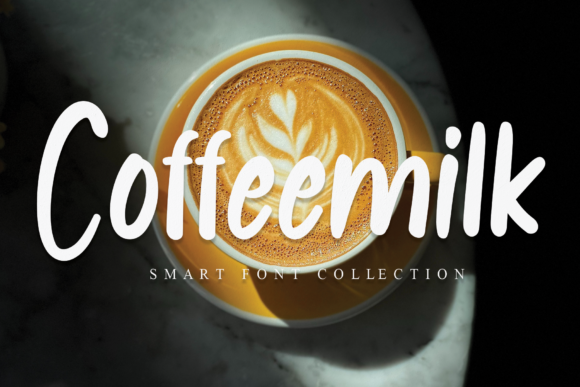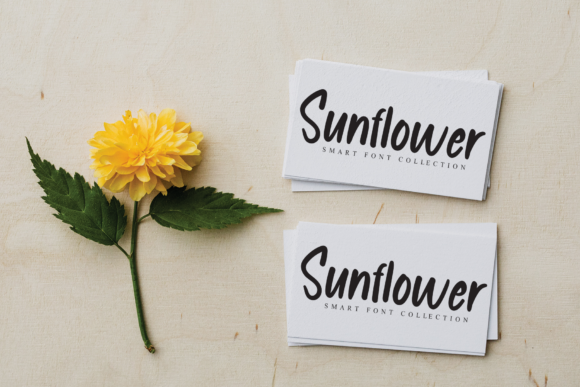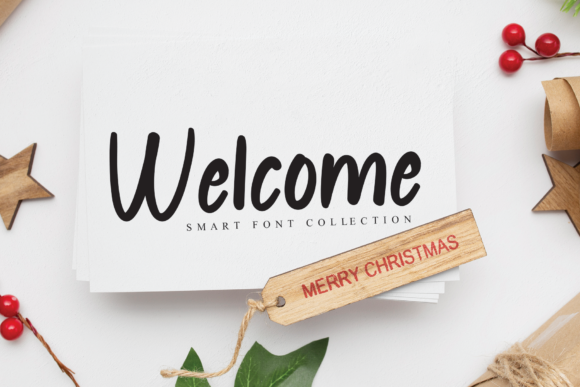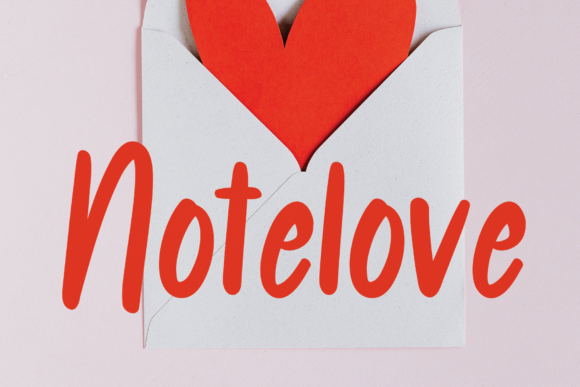
Rainbow Font
About Rainbow Font
Rainbow is a cool paint brushed handwritten font. No matter the topic, this font will be an incredibly asset to your fonts’ library, as it has the potential to elevate any creation.